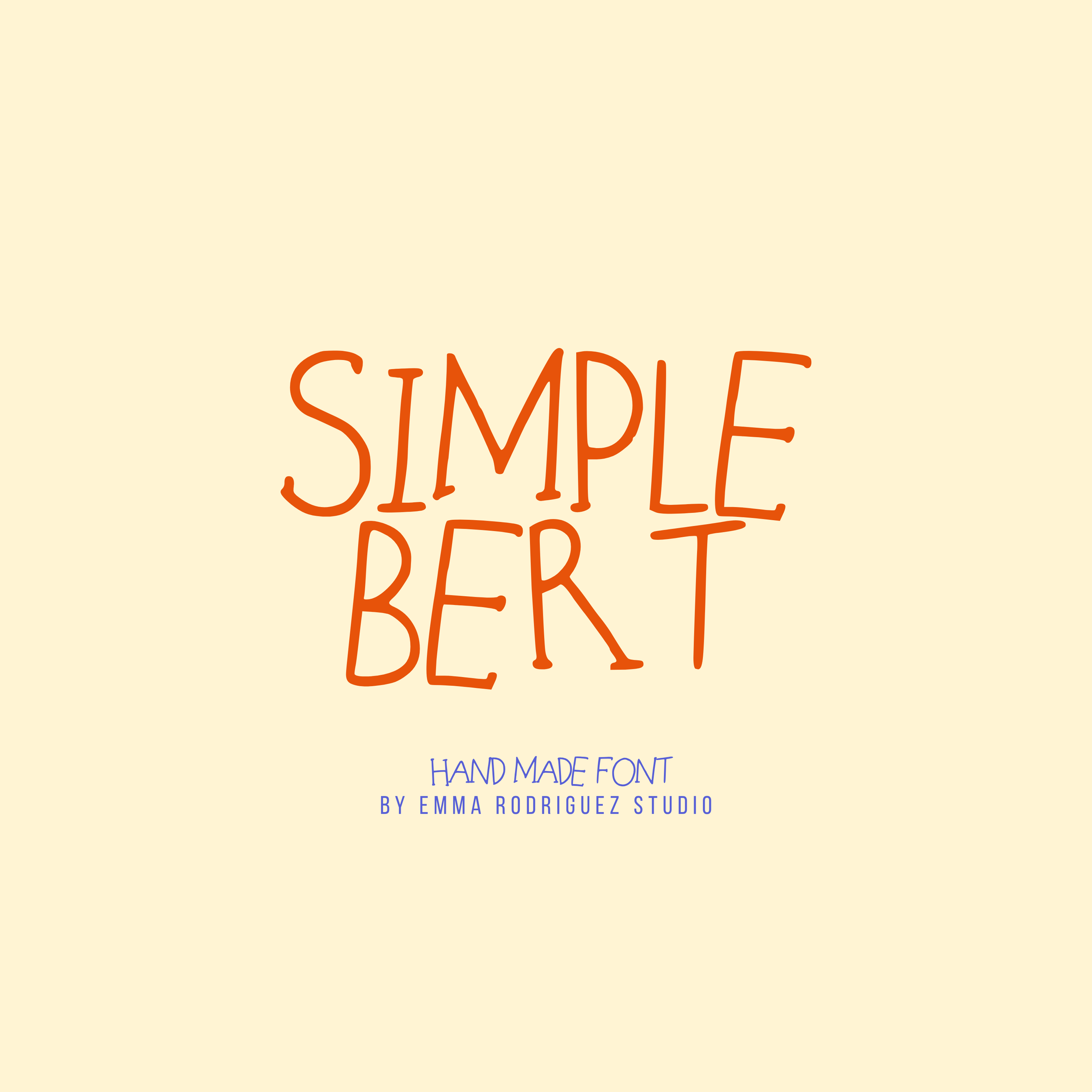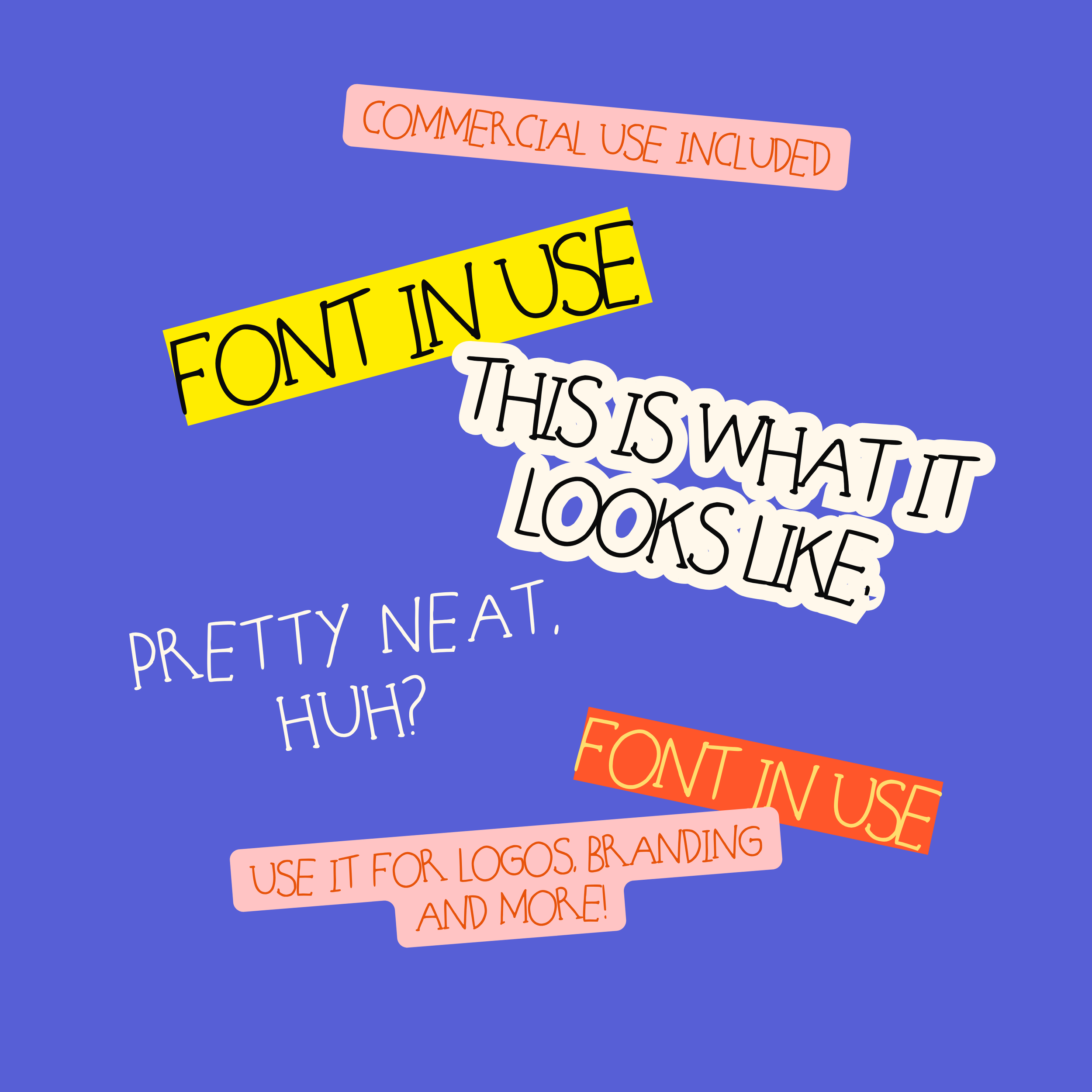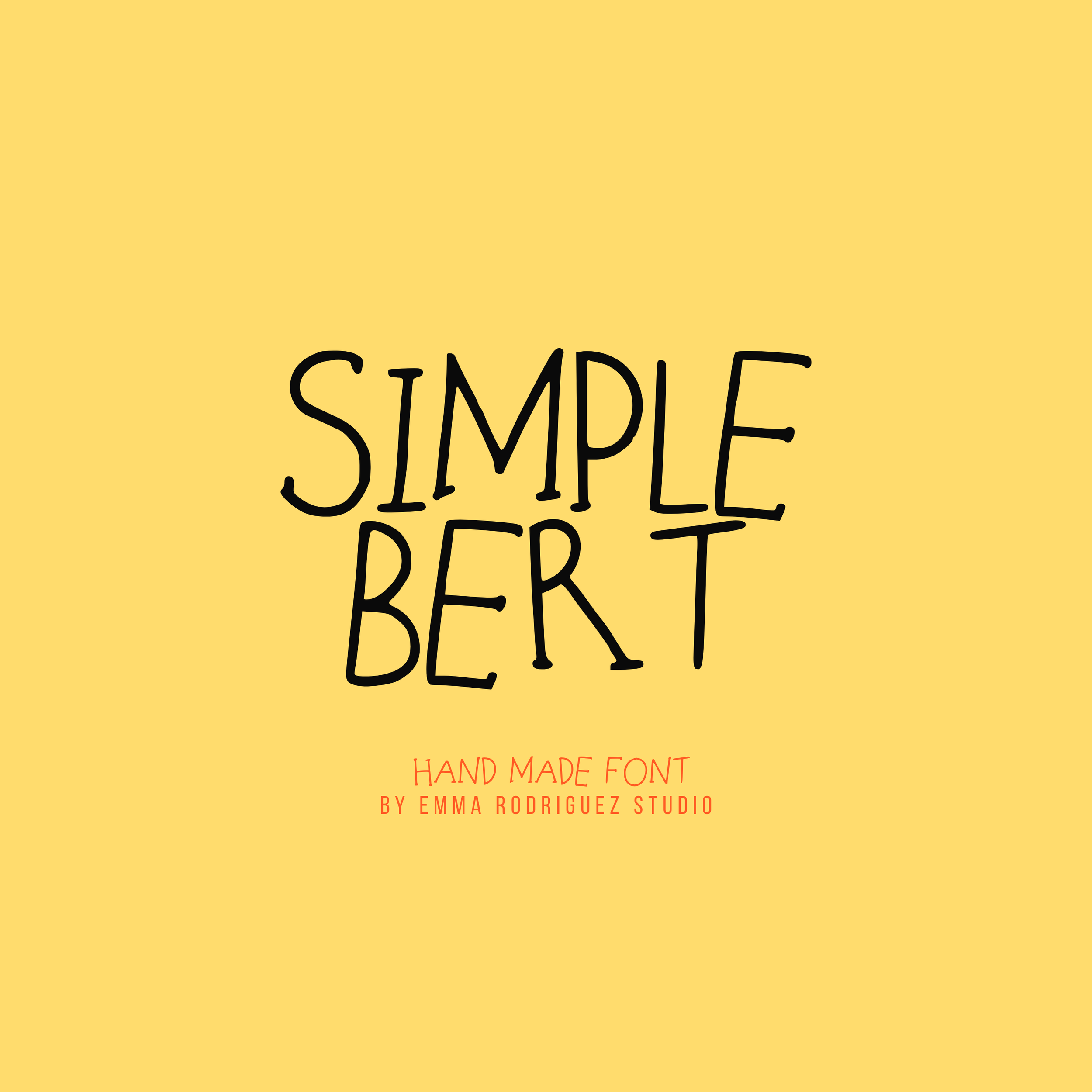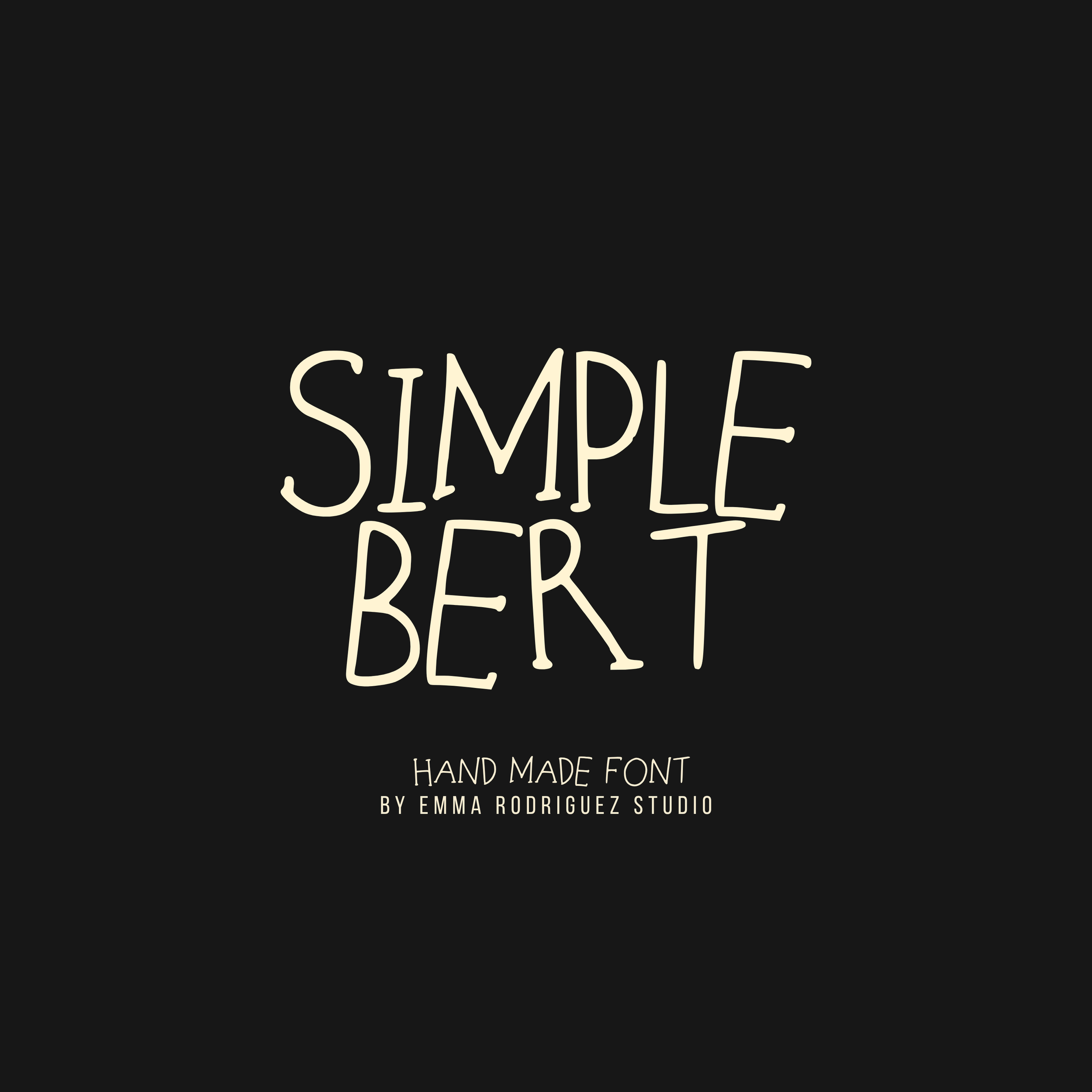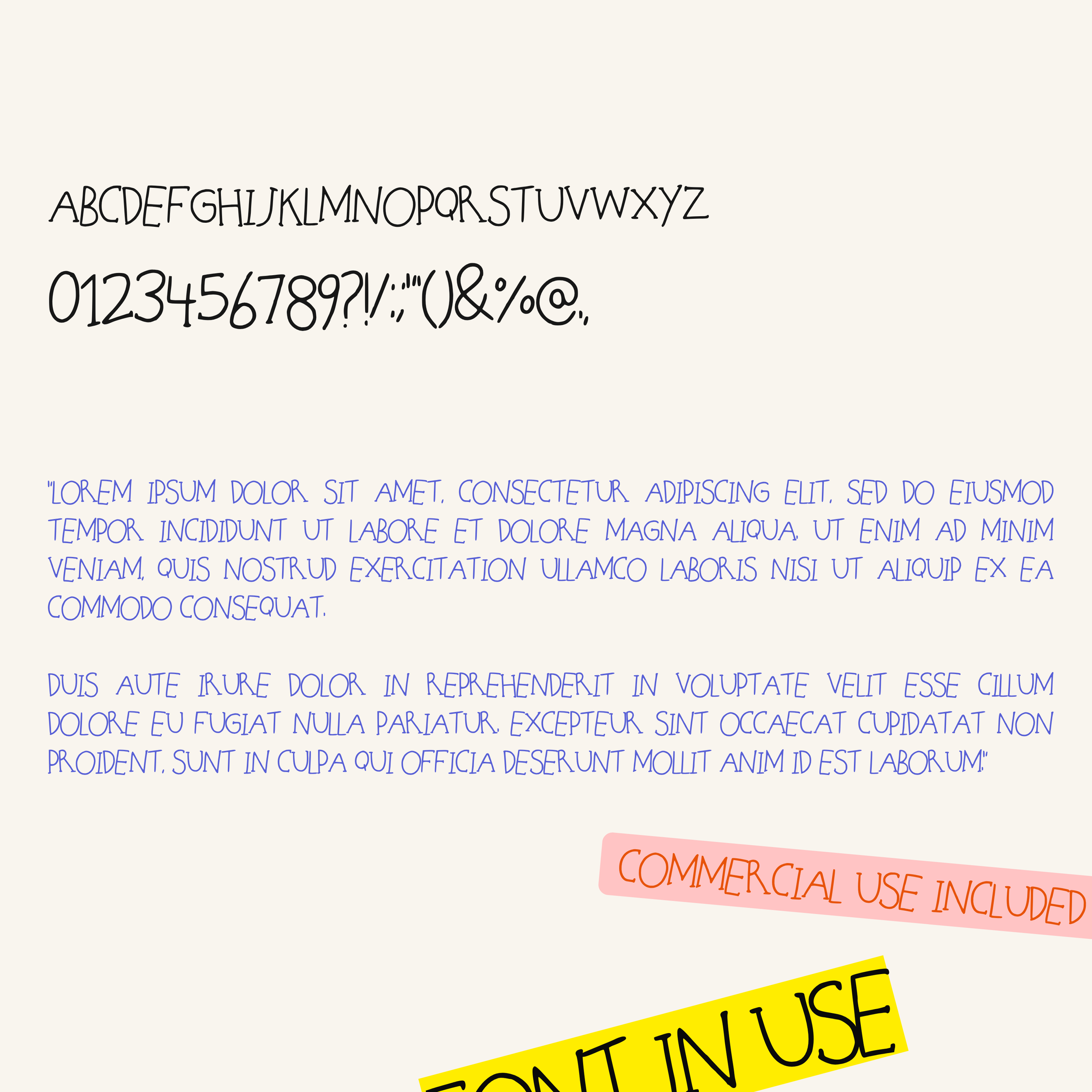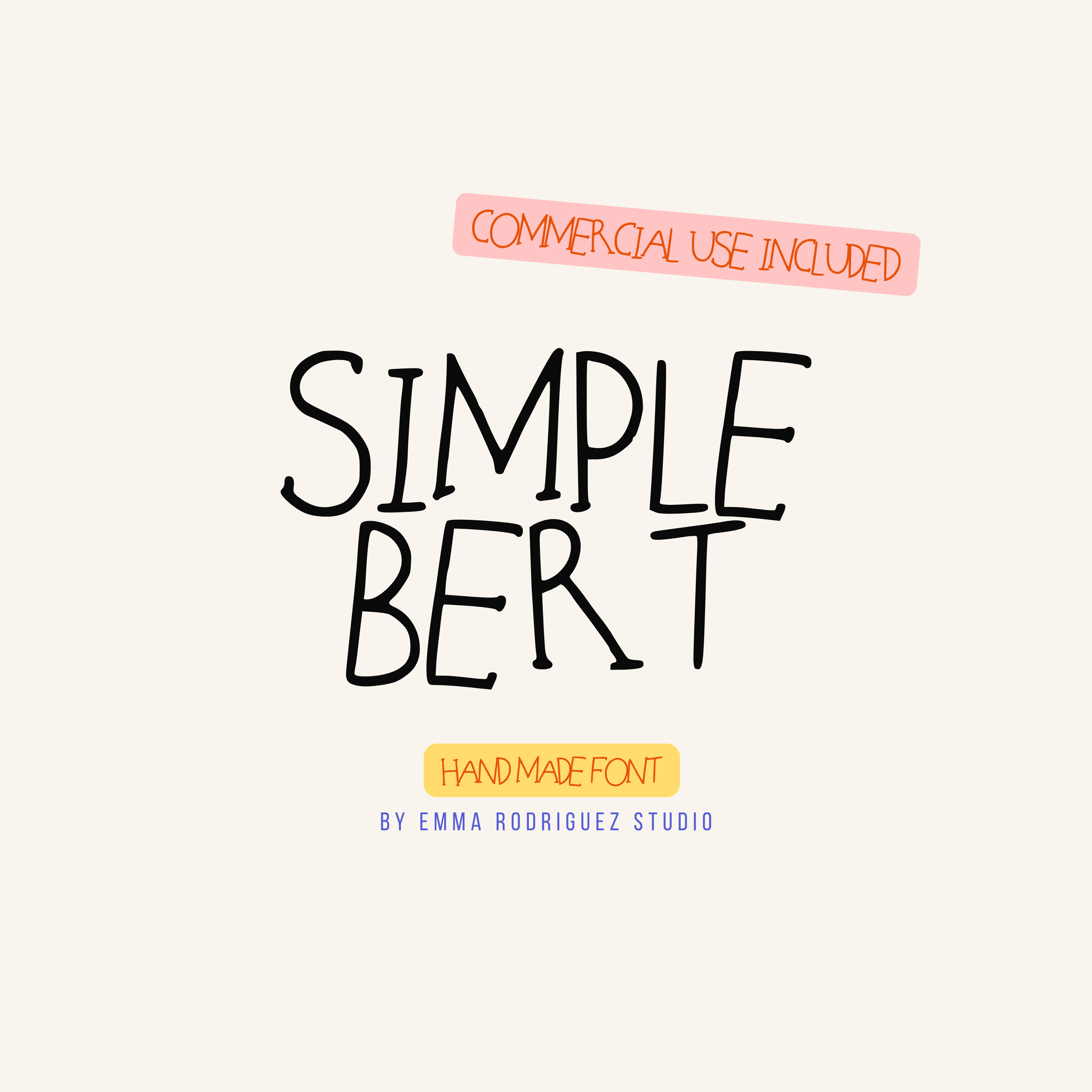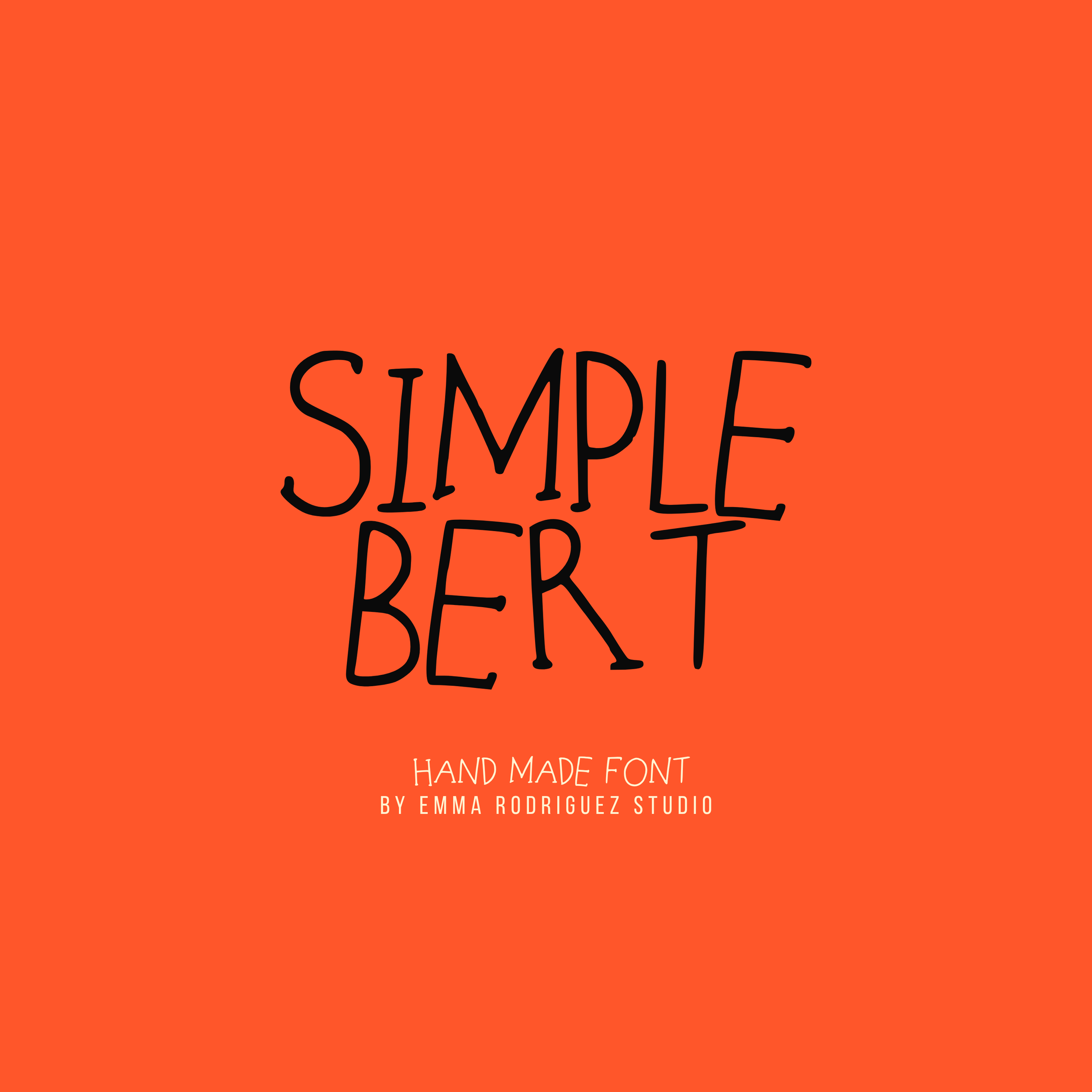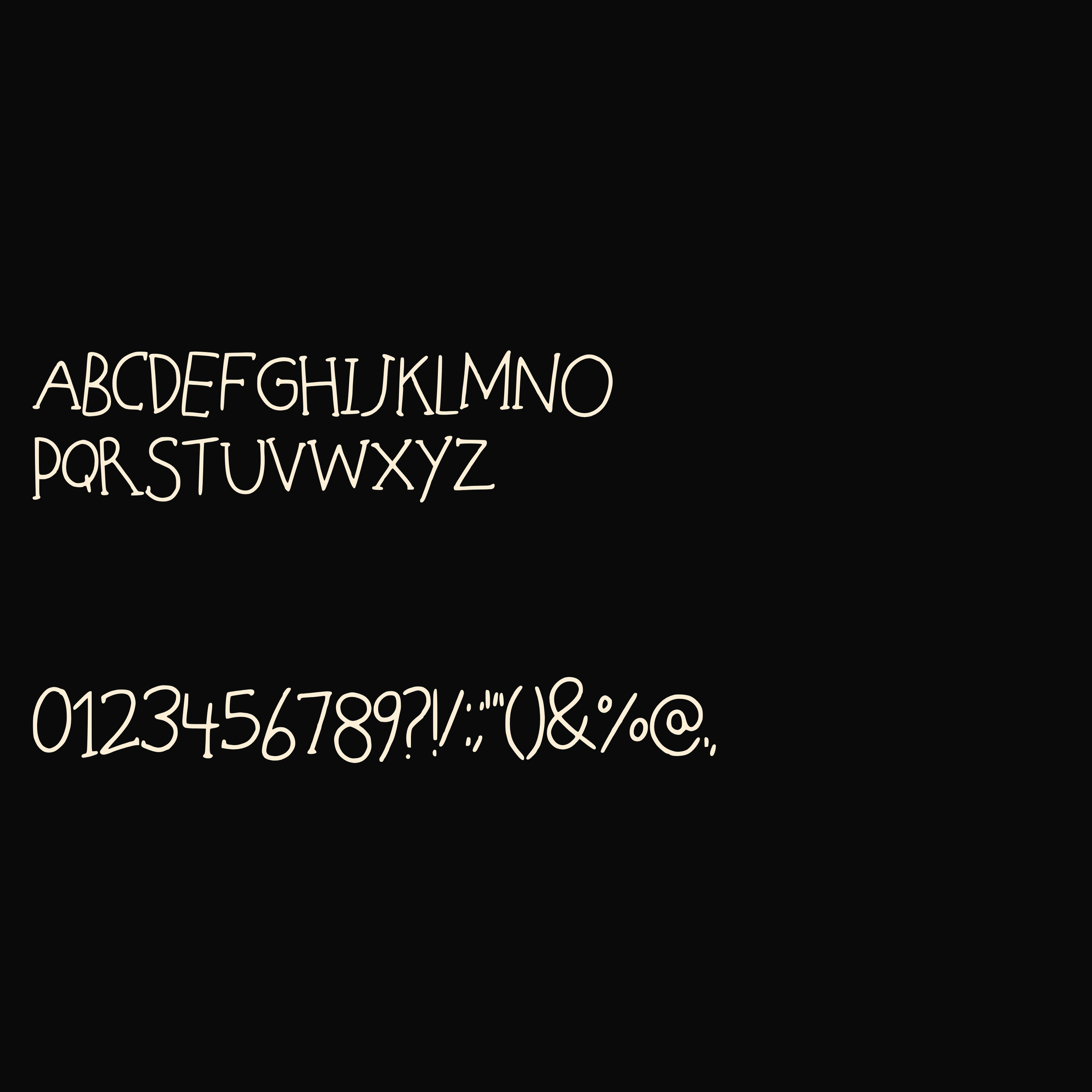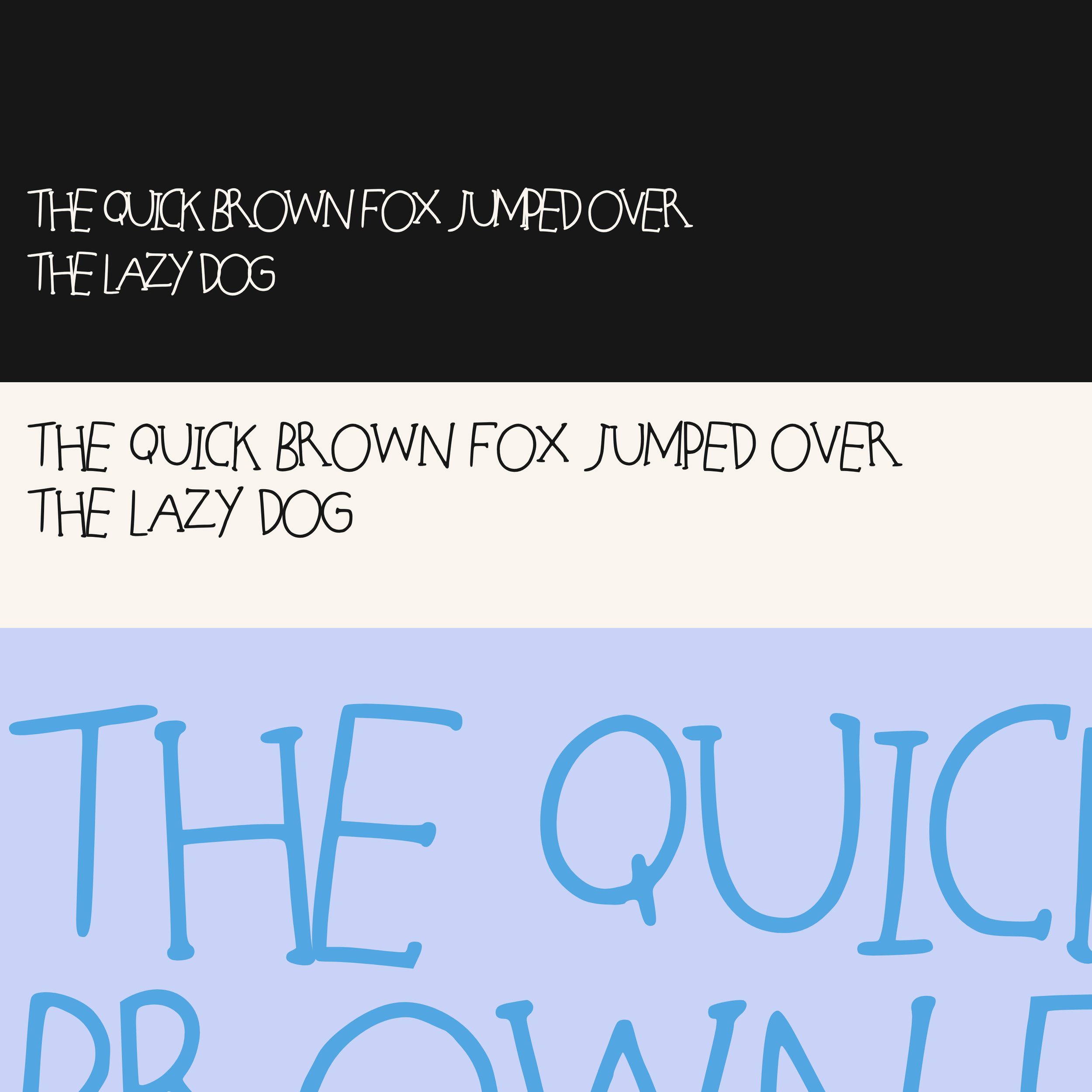
Simple Bert Font - Quirky Thin Type
Simple Bert is a tall hand drawn display font with narrow letterforms, uneven proportions and intentionally awkward little details that give it plenty of personality. Its handmade shapes, irregular spacing and imperfect alignment make it ideal for contemporary editorial design, posters and branding that needs to feel less polished and more distinctive.
This is an uppercase-only font, created for graphic designers, illustrators, artists, poster makers, branding designers, small businesses and Etsy sellers looking for expressive typography with a genuinely handmade quality.
Please note that Simple Bert is intentionally handmade and imperfect. Letterforms, spacing, proportions, alignment and overall form may vary throughout the character set. These irregularities are part of the design rather than errors, and some manual kerning or letter placement may be useful depending on your layout.